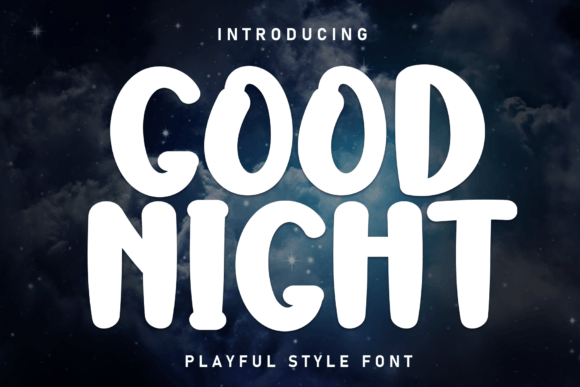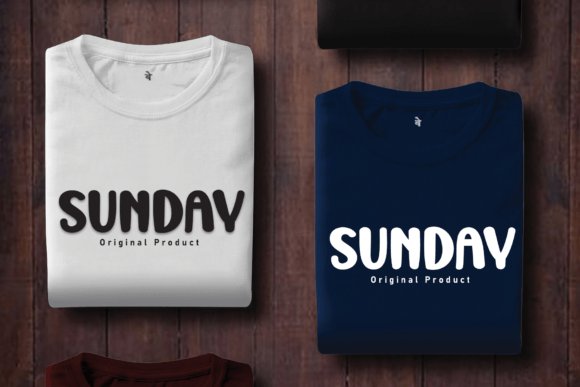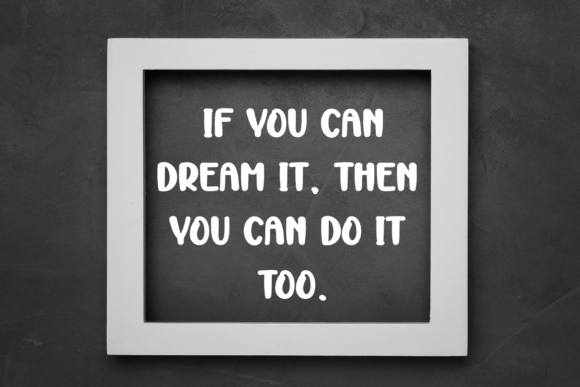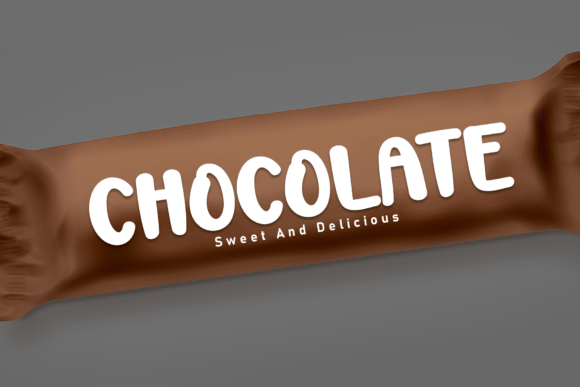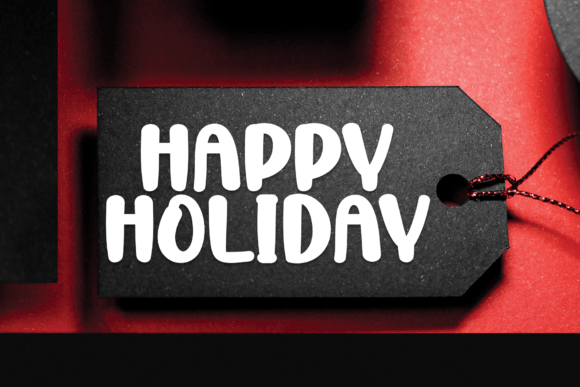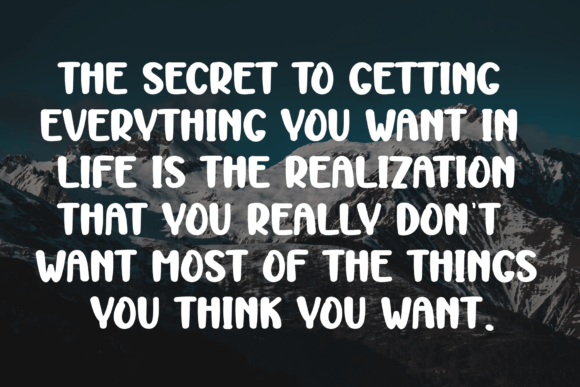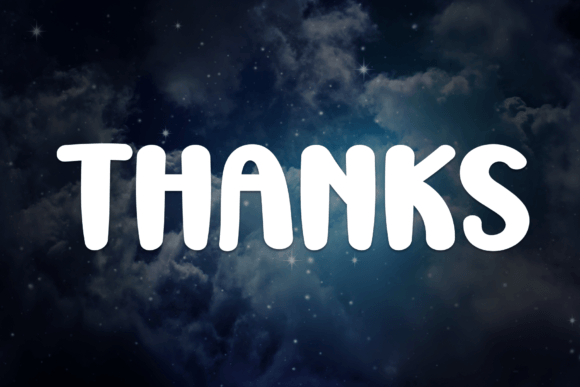
Unleashing Your Creativity with Good Night Font
There’s nothing quite like the feeling of staring at a blank canvas, waiting for inspiration to strike. The room is quiet, the lights are dimmed, and all that’s left is the sound of your pencil scratching against the paper. It’s in these moments that creativity truly thrives, and it’s exactly where the right font can make all the difference.
Enter Good Night Font, a sweet and friendly handwritten font that brings a touch of warmth and personality to any design. Whether you’re creating a children’s book, a wedding invitation, or a simple greeting card, this font is sure to make a lasting impression. With its natural and unique style, the possibilities are endless, and the only limit is your imagination!
For designers, Good Night Font is a valuable asset that can help take your work to the next level. Its versatility and charm make it a great addition to any design project, and its ease of use means you can focus on what matters most – bringing your vision to life.
Key Features of Good Night Font
- Unique Characteristics: The font features a unique blend of modern and vintage elements, with a soft, elegant feel that is perfect for creating a soothing atmosphere.
Good Night Font Review
Overall, I think the Good Night Font is a unique and eye-catching font. It’s ✨ easy to read, even in smaller sizes, and has a clean, modern feel to it. The font is perfect for creating a soothing atmosphere, which is exactly what the designer aimed for with the name.
- ✨ Unique and modern design
- ✨ Easy to read in small sizes
- ✨ Perfect for creating a soothing atmosphere
- ⚠️ Limited character set – may not be suitable for longer texts or technical content
- ⚠️ Not ideal for bold or dramatic headings
While the Good Night Font is a beautiful addition to any design, I think it’s best suited for smaller projects or text-heavy designs where readability is key. It’s not the most versatile font, but it’s perfect for creating a calm and peaceful vibe.
Overall, I’d give the Good Night Font 4 out of 5 stars. It’s a unique and beautiful font that’s sure to add a touch of sophistication to any design.
Use the “Good Night Font” to create a warm and inviting atmosphere in your designs.
Pair it with complementary colors and imagery to enhance its effect.
Experiment with different font sizes and styles to add visual interest.
Use the “Good Night Font” for:
1. Creating bedtime-themed designs.
2. Adding a touch of warmth to your branding.
3. Creating invitations or announcements for evening events.
Alternatives to Good Night Font for Designers
Raleway
Raleway is a popular sans-serif font known for its clean and elegant design. It’s suitable for a wide range of applications, from body text to headings. Raleway is a great alternative to Good Night Font when you need a more neutral and professional look.
Comparison to Good Night Font: Raleway has a more traditional and conservative feel, whereas Good Night Font is more modern and cursive. Raleway is ideal for corporate and business designs, whereas Good Night Font is better suited for creative and artistic projects.
Montserrat is a geometric sans-serif font that’s perfect for modern and urban designs. It’s highly legible and versatile, making it suitable for a wide range of applications. Montserrat is a great alternative to Good Night Font when you need a more modern and edgy look.